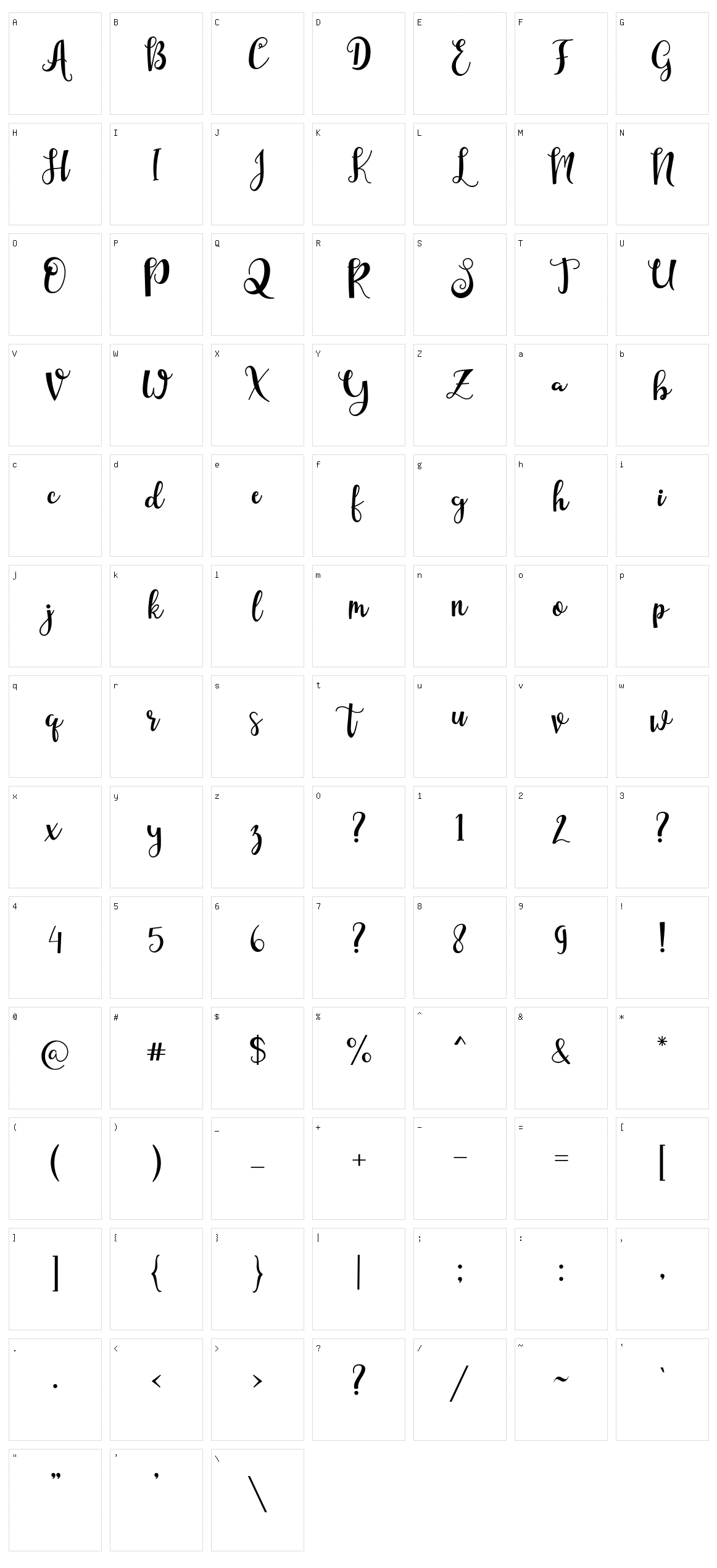
The free font Starlight is carefully designed by Letter Jos, showcasing a thoughtful balance of creativity and usability and falls under the Script font style. When you download the ZIP file, it contains only 66.71 KB of font files, making it lightweight and quick to download. Please review the license details below to understand permitted usage and distribution rights. If license information is not available, we recommend using this font for personal projects only or contacting the author directly for commercial usage permissions.
Starlight Script Font